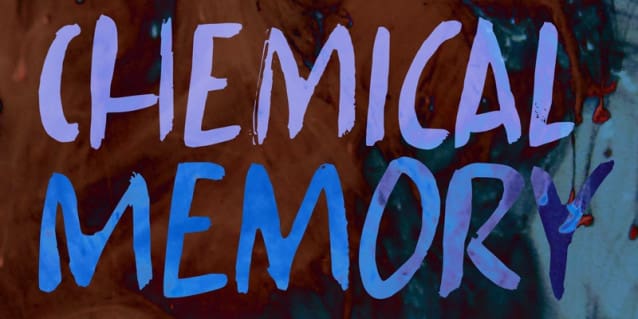
Chemical Memory Font
Chemical Memory Font, is a rather unique font, made with a brush and Chinese ink. Other than that, no chemicals were added and the ink I used is natural. ChemicalMemory comes with extensive language support and a set of alternates for the lower case letters.